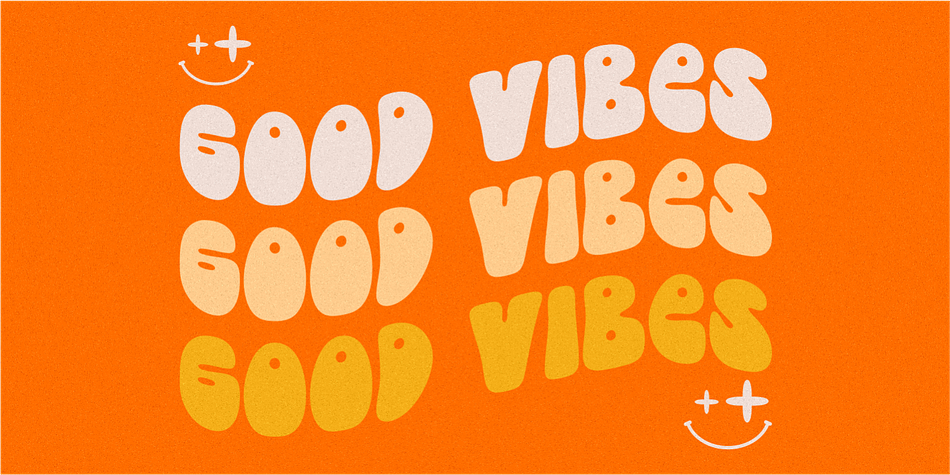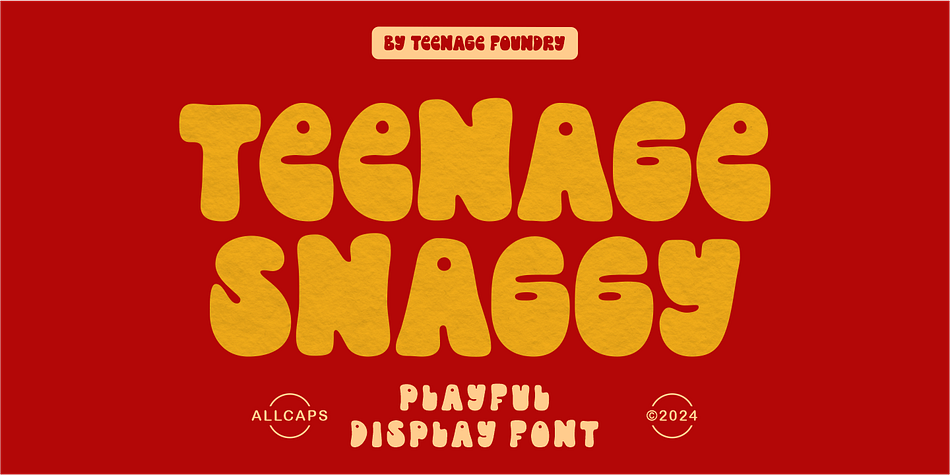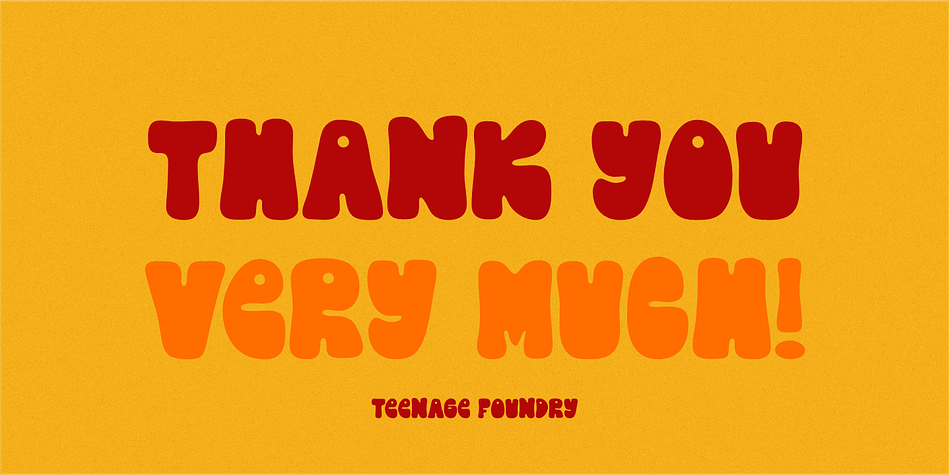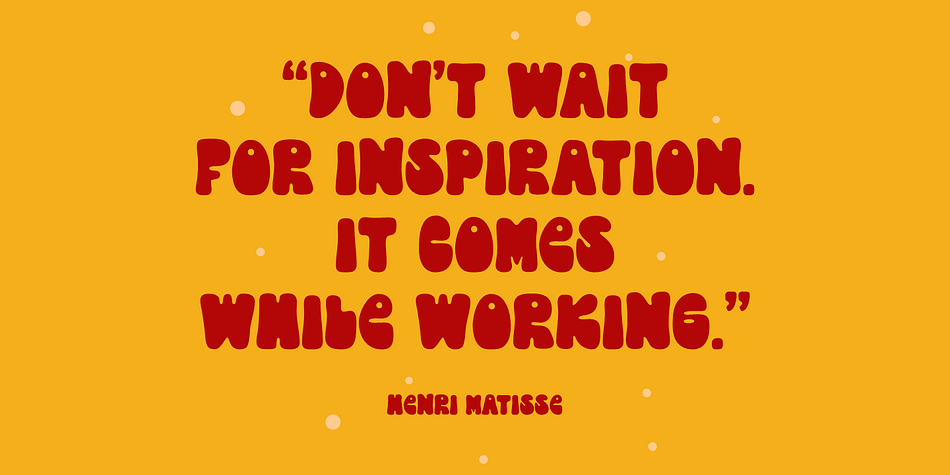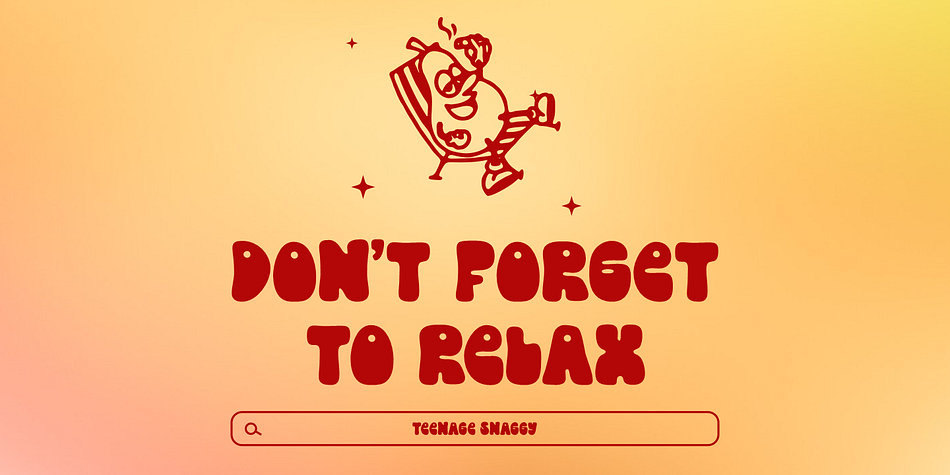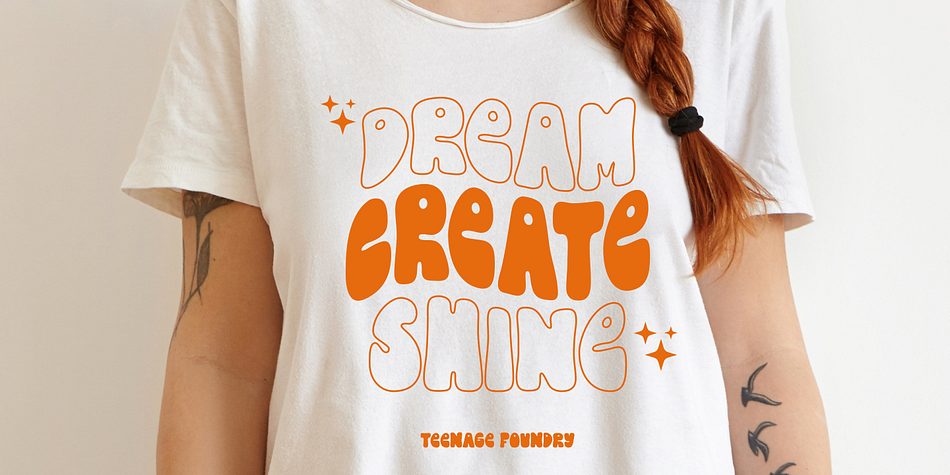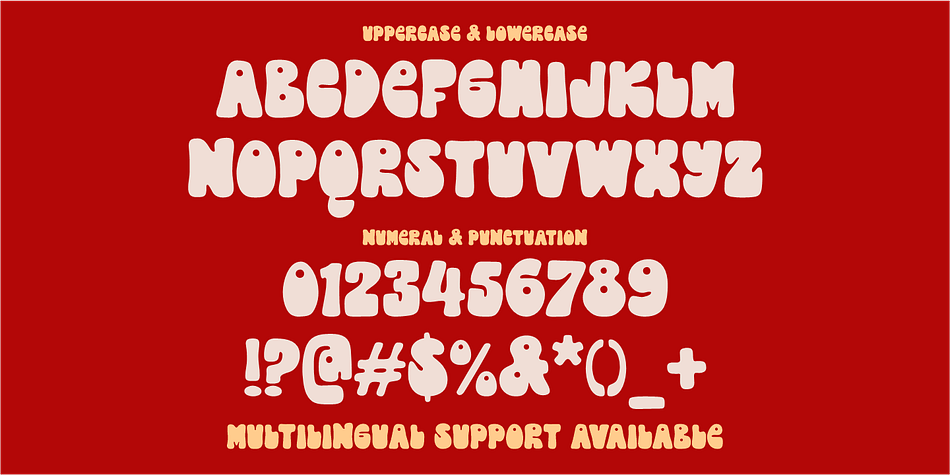
TEENAGE SNAGGY
Teenage Snaggy is a display font family published by Teenage Foundry.
Teenage Snaggy – Playful Display Font By Teenage Foundry
This font is incredibly versatile and can be used for a range of design projects, including posters, album covers, branding, and more. Its groovy style gives it a unique character that’s sure to make an impact.
Features: Uppercase, Lowercase, Numeral, Punctuation & Multilingual.